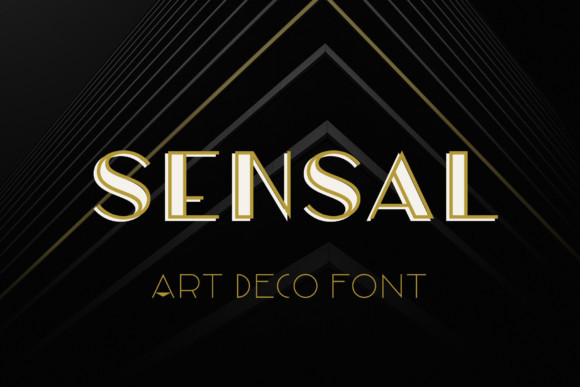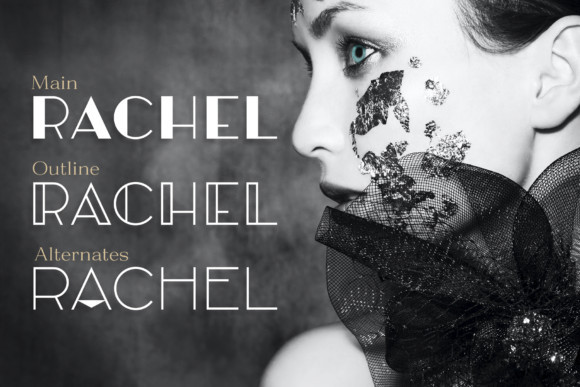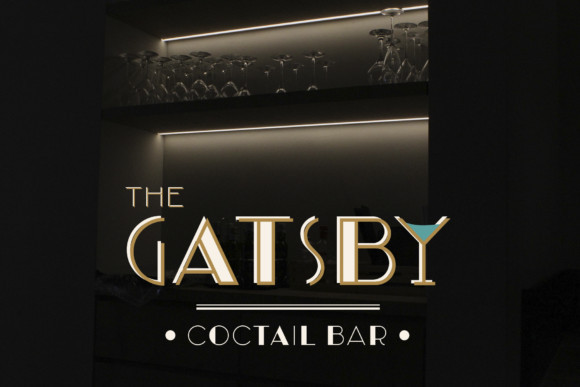
Sensal Font
Sensal is a great display font. It has a vintage and elegant look. Use it to add that special retro touch to any design idea you can think of!